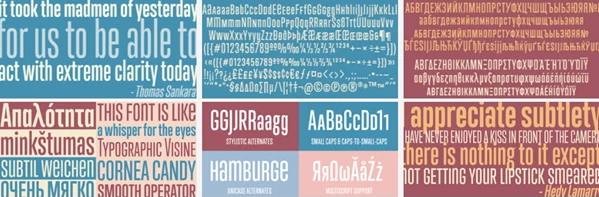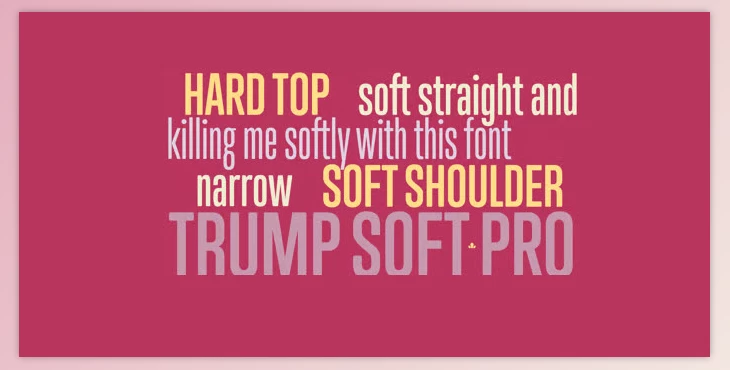
The Trump Soft Pro font family is a slightly updated version of the Trump Gothic Pro font, one of the most used typefaces in movies, magazines, book covers, and fashion houses across the globe. With its softened edges, it has a more delicate appearance but keeps the same functionality and modular design as the more rigid version. Trump Soft Pro is a derivative font of Georg Trump's 1955 Signum typeface and, later, the refined version by the Czech designer Stanislav Marso. Marso's 2002 version has attributes of either version to maintain heirloom quality.
This is one of the more popular families of fonts created starting in the late 1990s and the early 2000s for use in various film projects. While public distribution began in 2005, it became a popular type choice by 2013, when it was updated and established as a six font multiscript family. Each font contains over 1020 glyphs and countless OpenType features (small caps, stylistic alternatives), and with coverage spanning Latin, Cyrillic, and Greek scripts, this is a quality font for those looking for heirloom-rooted appeal and multiscript needs.